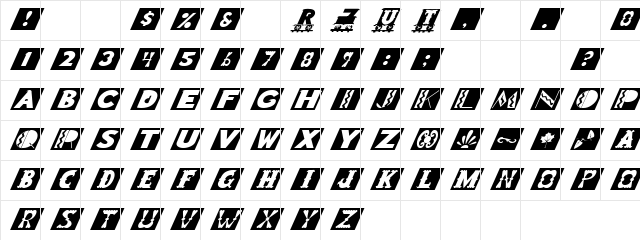
FZ BORDERS 15 ITALIC Normal
Design Context for FZ BORDERS 15 ITALIC
FZ BORDERS 15 ITALIC is a composed and adaptable typeface that performs quietly and consistently across a wide range of design contexts. The slanted form adds forward momentum and visual energy.
Pro Tip: Use FZ BORDERS 15 ITALIC for emphasis, pull quotes, and subheadings where its slanted energy can add rhythm to the layout.